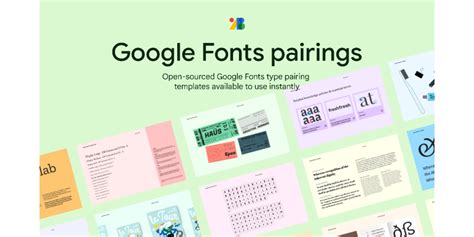
Figma Font Downloads: Your Ultimate Guide
Hey design peeps! Let’s talk about something super important for making your Figma designs pop: fonts . You know, those little characters that give your text personality and style. If you’ve been wondering where to snag awesome fonts for your Figma projects, you’ve landed in the right spot. We’re diving deep into the world of Figma font downloads , exploring the best places to find them, how to use them, and some tips to make your typography shine. Ready to level up your font game? Let’s get into it!
Why Fonts Matter in Figma
Before we jump into the download frenzy, let’s quickly chat about why fonts are such a big deal in Figma. Think of your design like a conversation. The font you choose is like the tone of voice. Is it playful and energetic? Or is it serious and professional? Typography is a powerful tool that can evoke emotions, guide the user’s eye, and convey brand identity. In Figma, where visual communication is key, selecting the right font isn’t just an aesthetic choice; it’s a strategic one. A well-chosen font can make your UI/UX designs more accessible, readable, and engaging. Imagine trying to read a chunky, decorative font for your main body text – yikes! Or, conversely, using a super minimalistic font for a bold headline. It just won’t hit the mark. That’s where understanding font families, weights, and styles comes in. You need fonts that are versatile enough for different uses within your design system, from headlines and subheadings to body copy and captions. And when you’re working in Figma, having easy access to a wide range of high-quality fonts is crucial for iterating quickly and bringing your vision to life without limitations. The ability to easily integrate new fonts via downloads means your design possibilities are practically endless. So, yeah, fonts are kinda a huge deal, and mastering Figma font downloads will seriously boost your design capabilities.
Where to Find Awesome Fonts for Figma
Alright, the big question: where do you actually get these amazing fonts? Luckily, the internet is brimming with fantastic resources. Let’s break down some of the top spots for Figma font downloads .
Google Fonts: The Free and Mighty
First up, you absolutely have to know about Google Fonts . This is hands-down one of the best resources out there, and guess what? It’s completely free! Google Fonts offers a massive library of open-source fonts that are not only beautiful but also optimized for web and mobile use. You can browse by category, popularity, or even by similarity. What’s super cool is that most of these fonts work seamlessly with Figma. You can often install them directly onto your computer, and they’ll appear automatically in Figma, or you can use the Figma Font Helper. It’s a lifesaver for designers on a budget or those who need a quick, reliable source for a huge variety of typographic styles. Whether you need a clean sans-serif for body text, a bold serif for headings, or something a little more quirky for a special project, Google Fonts has got you covered. The quality is generally excellent, and the licensing is very permissive, making them a go-to for countless designers worldwide. Plus, Google is constantly adding new fonts, so the library never gets stale. Seriously, guys, bookmark this one!
Adobe Fonts: Integrated Power
How to Use Downloaded Fonts in Figma
Okay, you’ve found the perfect font(s) – congrats! Now, how do you get them into Figma? It’s usually pretty straightforward, but there are a couple of ways to do it. The method often depends on whether the font is installed on your operating system or if you’re using Figma’s web version.
Installing Fonts on Your Computer (Desktop App)
If you’re using the Figma desktop app or have the Figma Font Helper installed, the easiest way is to install the font directly onto your computer. This usually involves downloading the font file (often a .zip archive containing .otf or .ttf files), extracting it, and then installing it on your system.
• On Windows: Right-click the font file and select ‘Install’ or ‘Install for all users’.
• On macOS: Double-click the font file and click ‘Install Font’ in the Font Book application that opens.
Once installed on your system, the font should automatically appear in your font list within Figma the next time you open the application or refresh your file. This is the most common and reliable method for using custom fonts in Figma.
Using the Figma Font Helper (Web App)
If you’re using Figma purely in your web browser and haven’t installed the desktop app, you’ll need the Figma Font Helper . This small application runs in the background and allows Figma to access fonts installed on your computer. If you haven’t got it, Figma will prompt you to download and install it when you first try to use a local font. Once installed, it bridges the gap, making your locally installed fonts available within the web interface. It’s a crucial piece of kit for web-based workflows.
Conclusion: Font Downloads for Design Success
So there you have it, guys! A comprehensive rundown on Figma font downloads . From finding free gems on Google Fonts and Font Squirrel to accessing premium options on MyFonts and Creative Market, and even leveraging Adobe Fonts if you’re in the Creative Cloud ecosystem, the options are plentiful. Remember to install them correctly and, most importantly, use them thoughtfully. Prioritize readability, maintain consistency, utilize the full range of font weights and styles, and always keep accessibility at the forefront. Mastering typography is a journey, and having a solid understanding of how to source and implement fonts in Figma is a massive step towards creating stunning, effective designs. Happy designing, and happy font hunting!